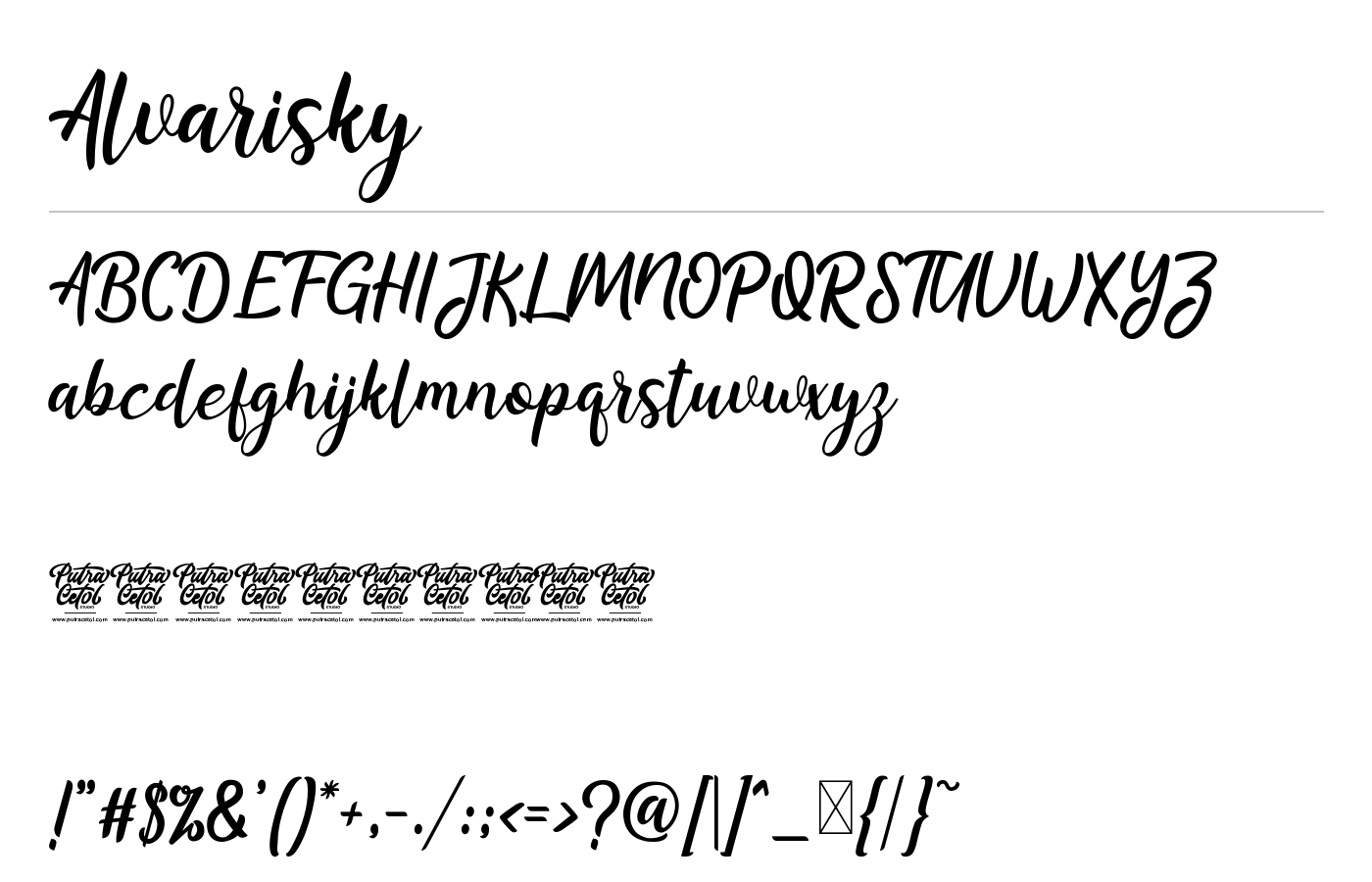
Alvarisky is a graceful script font with a natural, handwritten feel characterized by its flowing, slightly angled letterforms and moderate stroke contrast. It offers a warm and approachable personality, making it ideal for creative branding, invitations, and elegant headlines where a personal touch is desired. Its clear readability combined with stylish curves works well for design projects that want to convey friendliness and sophistication.
Alvarisky Font
About Alvarisky Font